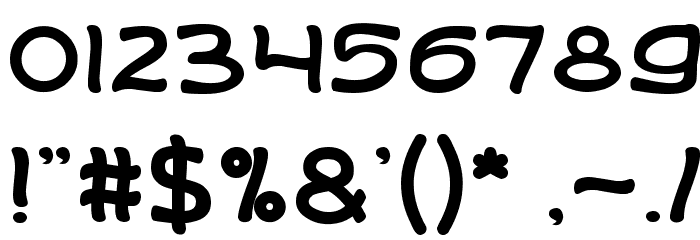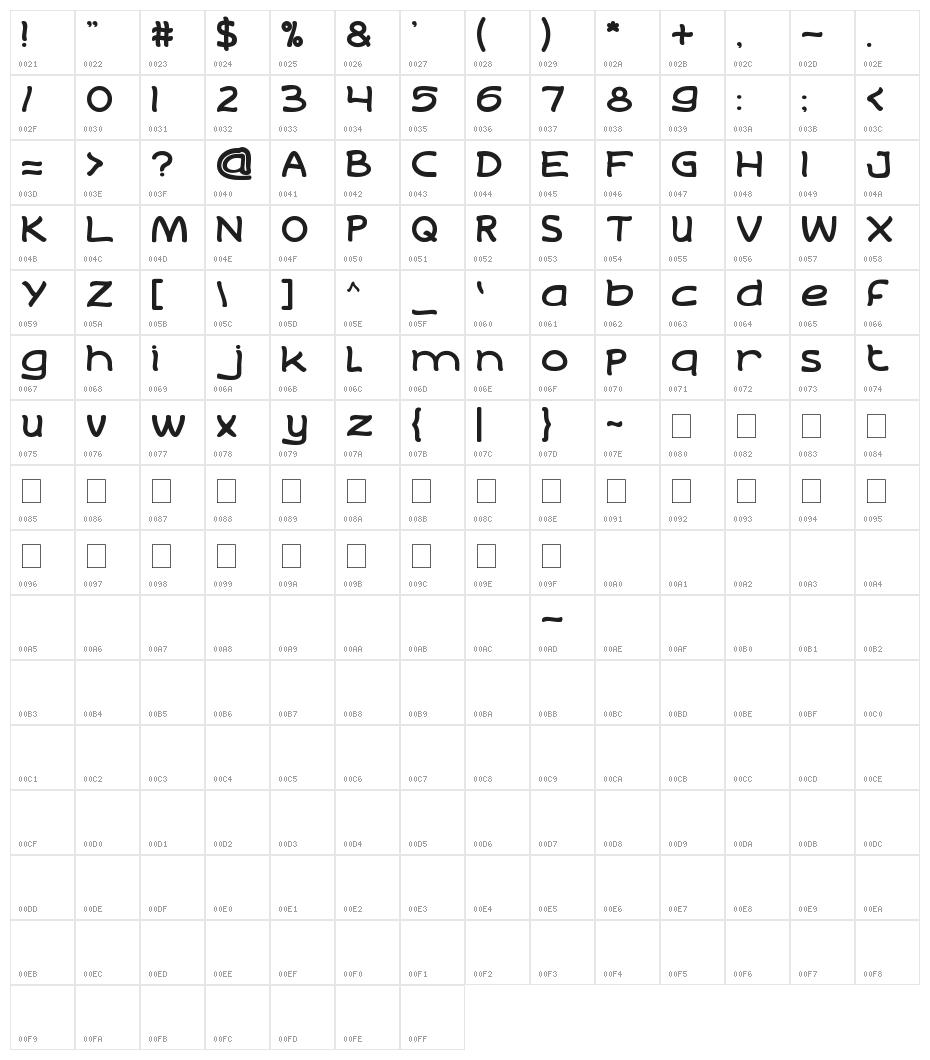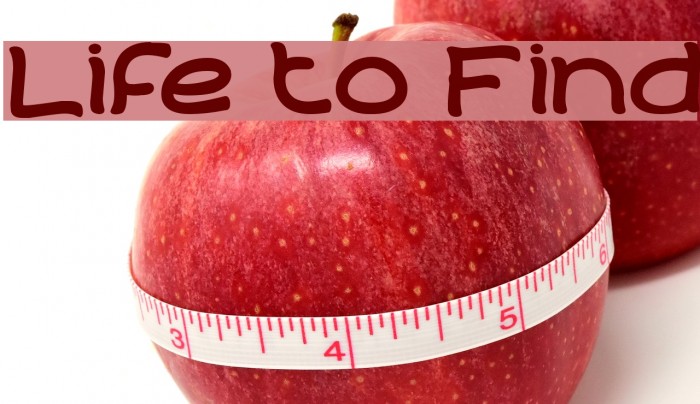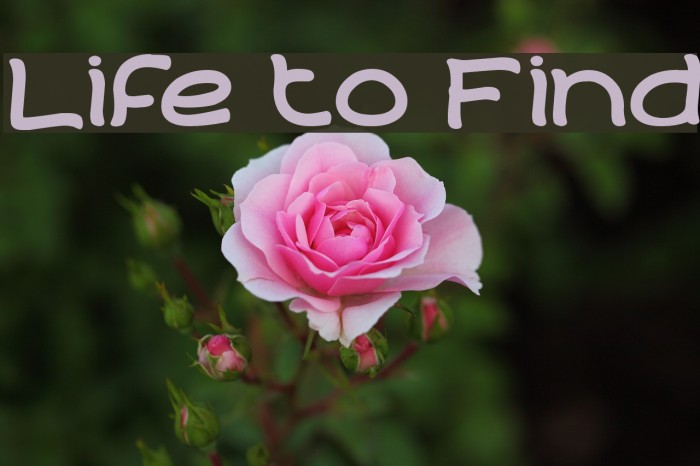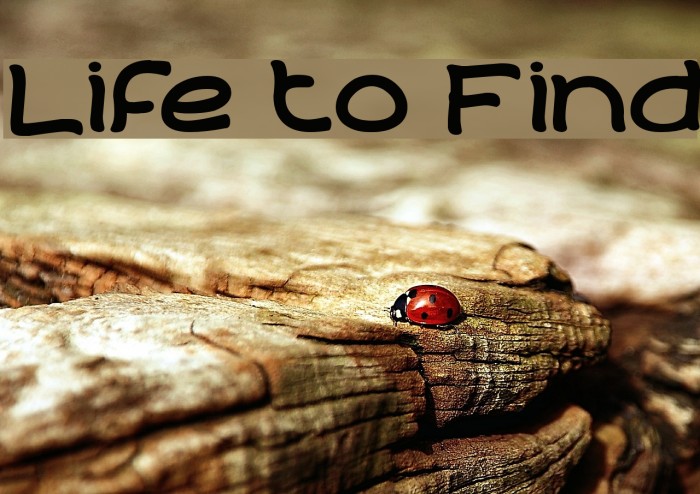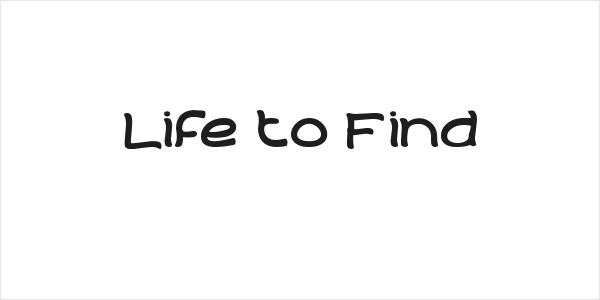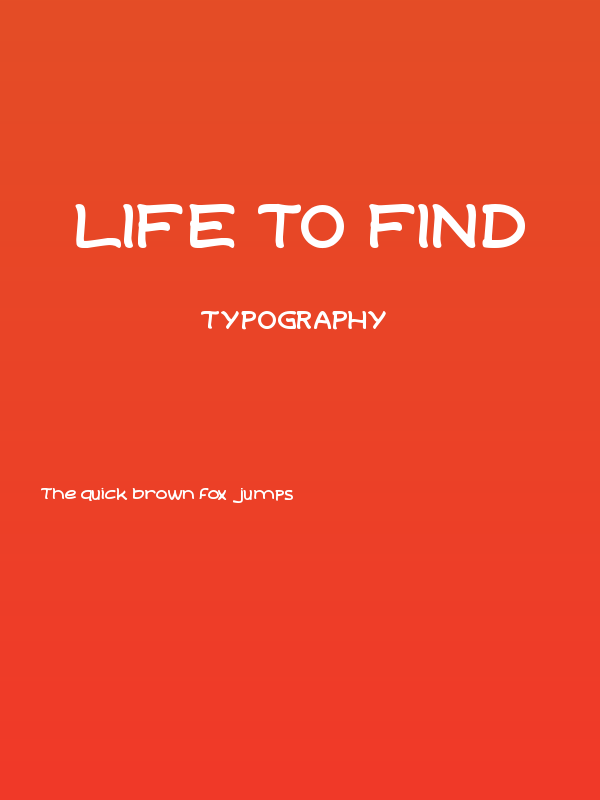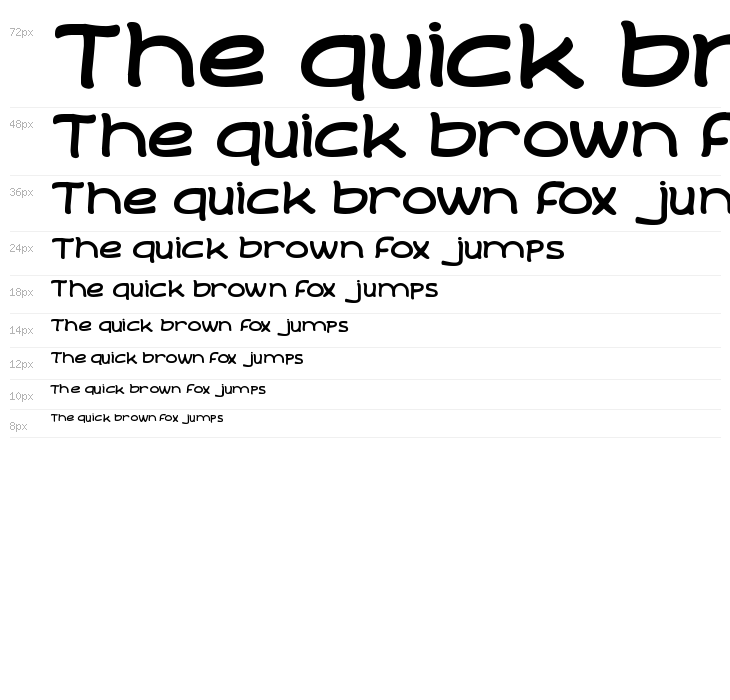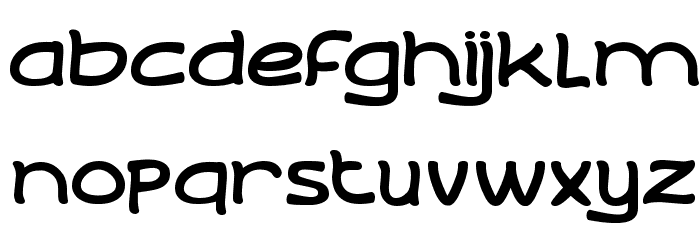
Life to Find Font
Life to Find Description
This playful and whimsical font features rounded, slightly irregular characters that give it a hand-drawn appearance. The uppercase and lowercase letters maintain a consistent style, with smooth curves and a friendly demeanor. The numbers and special characters follow the same playful design, making the font versatile for various creative projects. Its unique style is both approachable and fun, making it ideal for informal and lighthearted applications. The font's overall appearance is casual, yet it maintains readability across different sizes.
| Use Case | Headlines, Logos, Informal Texts |
| Proposed Projects | Ideal for children's books, greeting cards, playful branding, and casual invitations. |